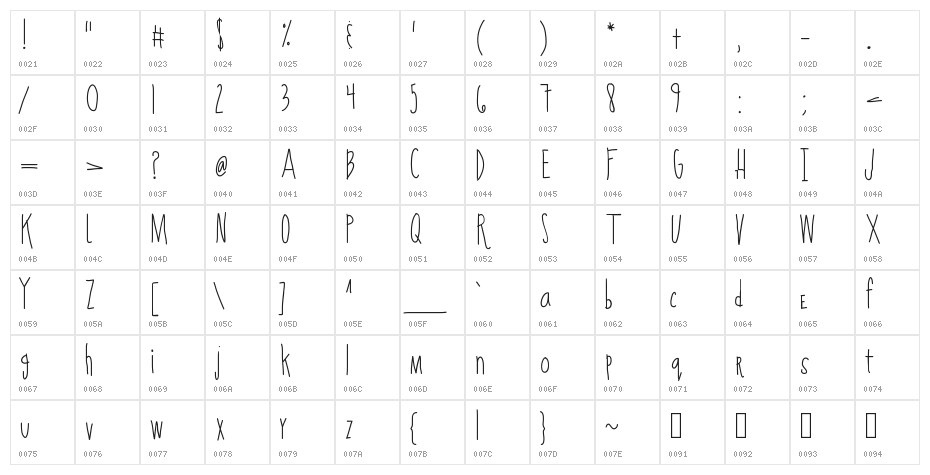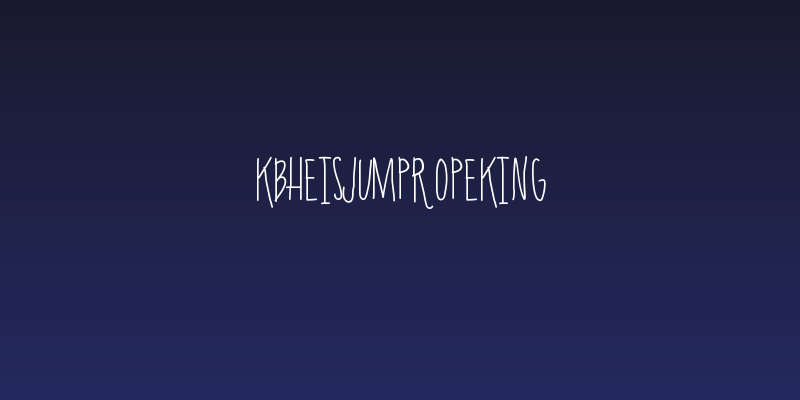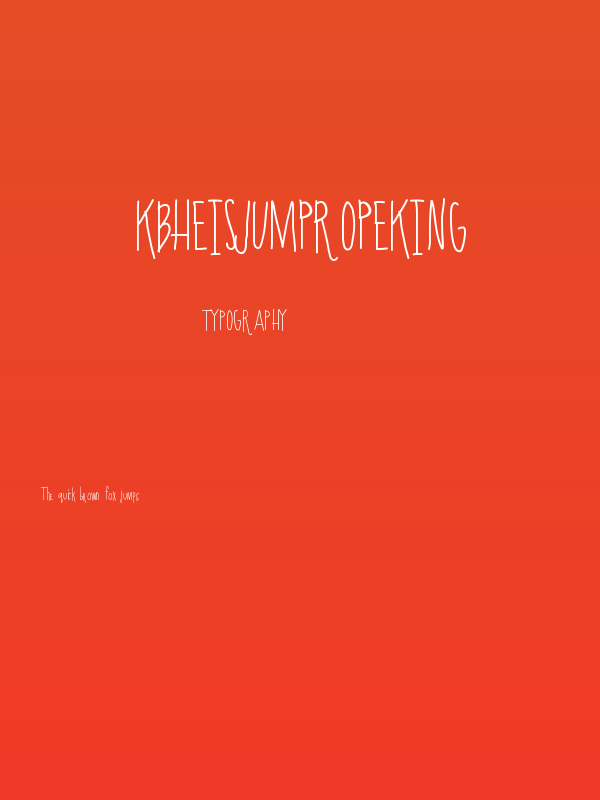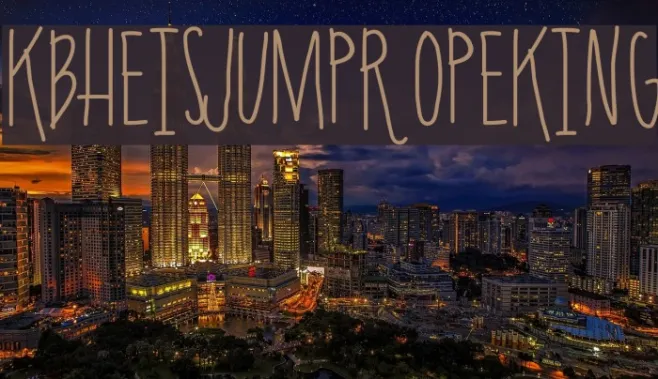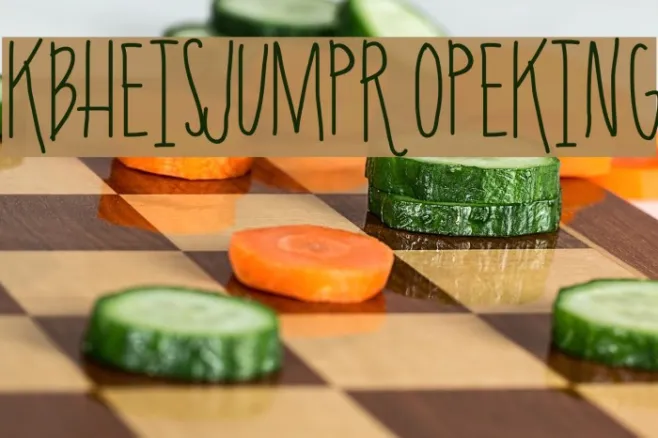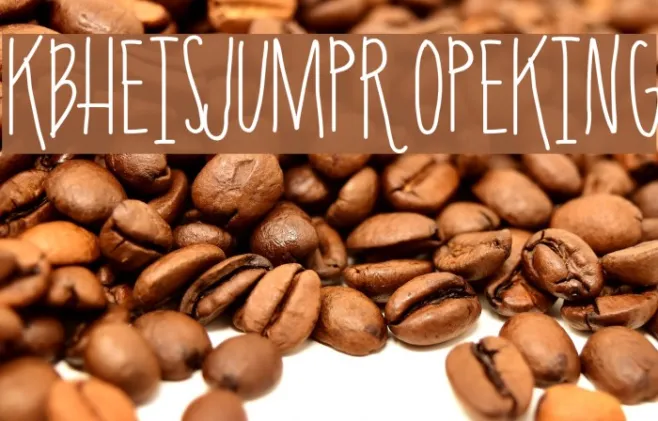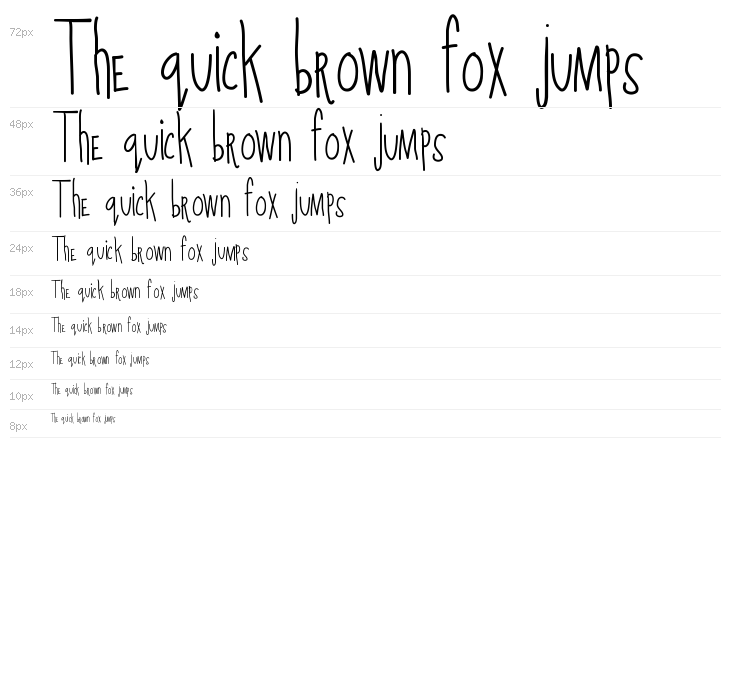
KBHEISJUMPROPEKING Font
KBHEISJUMPROPEKING Description
This font features a playful and whimsical handwritten style, characterized by its tall, narrow letters and slightly irregular strokes. The uppercase and lowercase letters maintain a consistent height, giving it a cohesive appearance. The numerals and special characters follow the same playful aesthetic, making it suitable for informal and creative projects. The strokes are thin, with a slight variation in thickness that adds to its hand-drawn charm. This font exudes a casual and friendly vibe, perfect for projects that require a personal touch.
| Proposed Projects | Ideal for greeting cards, children's books, playful branding, and casual invitations. |